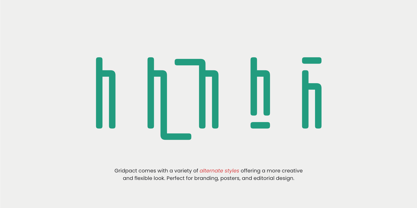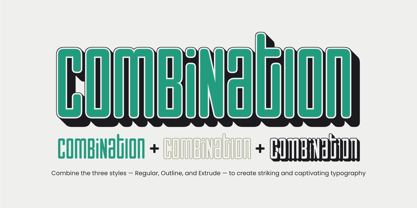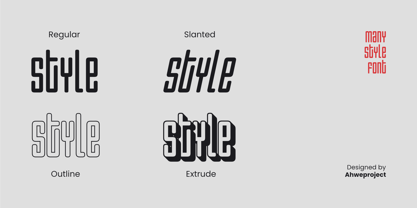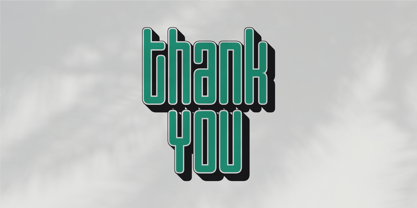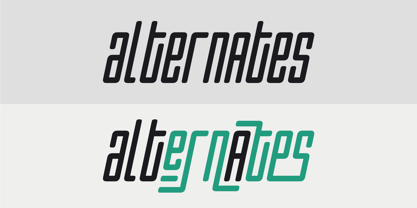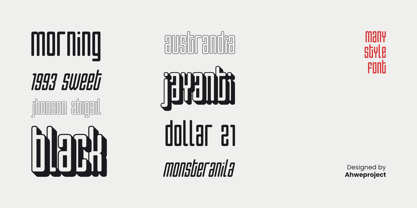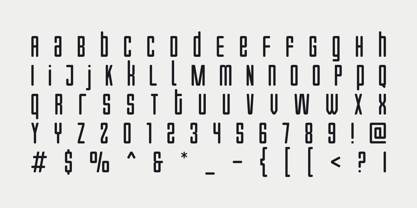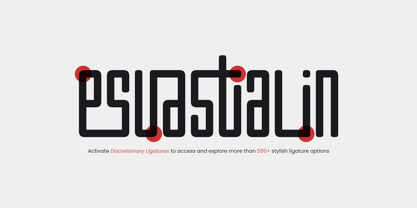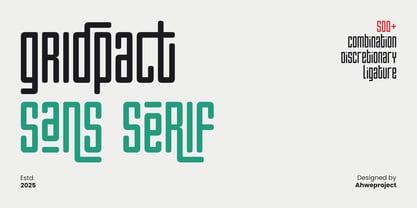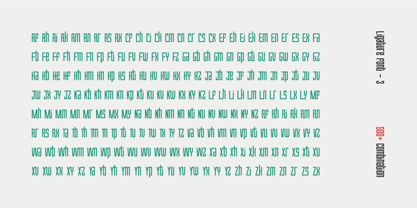
Gridpact
The Gridpact Font Family was designed by Dida Ahluddin and published by ahweproject. Gridpact contains 4 styles and family package options. More about this family
Introducing Gridpact, a modern sans serif font crafted for those who love clean, futuristic, and character-packed designs. Built on a precise grid system, Gridpact stands out with over 500 discretionary ligature combinations, giving every word a unique and eye-catching look. Perfect for branding designs, electronic music posters, sci-fi book covers, creative logos, and other modern projects. Its modular and minimalist letterforms make it both flexible and stylish with a strong, consistent identity. Features : - Uppercase & lowercase - Numbers and punctuation - Multilingual - Geometric sans serif style with a tech and retro-futuristic touch - 500+ discretionary ligatures for limitless variation - Ideal for headlines, logos, and editorial layouts - Alternates - Ligatures - PUA encoded Make your design stand out and look innovative with Gridpact. This font isn’t just letters—it’s a visual statement. We strongly recommend using applications that support Opentype Features and Glyphs panels such as Adobe Apps and Corel Draw. So you can see and access all the variations of Glyphs. Happy Design!